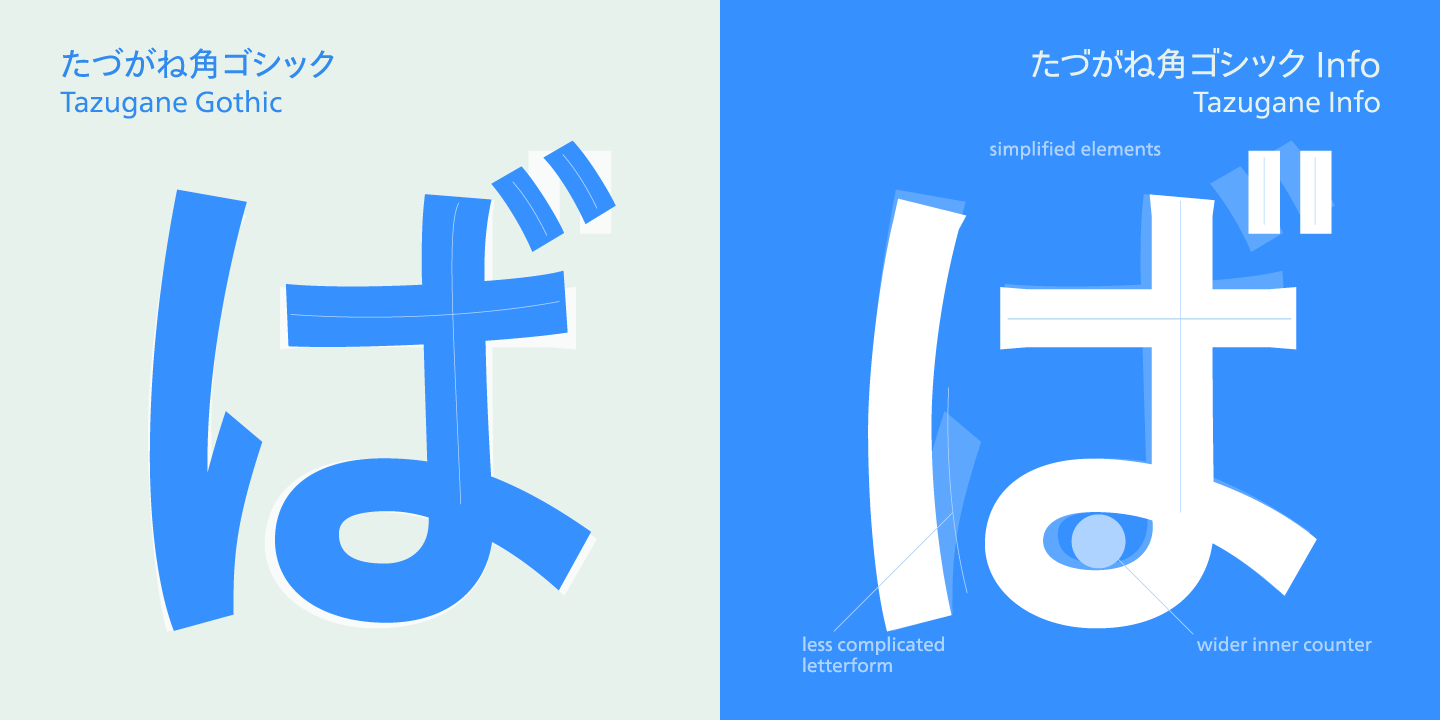
The Tazugane Info Font excels in various design applications including informational signage systems, wayfinding design projects, educational material layouts, technical documentation, transportation hub communications, public information displays, instructional design materials, user interface typography, data visualization graphics, and comprehensive information design that demands exceptional clarity and systematic organization.
What makes the Tazugane Info Font exciting is its specialized design philosophy that prioritizes information hierarchy and reading comprehension through meticulously crafted letterforms optimized for complex informational environments. This typeface demonstrates exceptional functionality through its systematic approach to character design that enhances scanability, reduces cognitive load, and improves information processing efficiency. The font's information-focused personality makes it ideal for organizations and institutions seeking typography that transforms complex data into accessible, easily digestible information through clear visual communication that respects readers' time and attention.
The Tazugane Info Font family typically includes comprehensive weight variations specifically designed for information hierarchy, featuring enhanced legibility optimizations, extended character sets for multilingual applications, and specialized symbols for technical and instructional use. These family options often include condensed variants for space-constrained environments, tabular numerals for data alignment, and accessibility-focused features that ensure optimal performance across diverse reading conditions and user needs.
Information design professionals and educational institutions consistently select Tazugane Info Font Free Download for projects requiring typography that maximizes information clarity and user comprehension. This typeface delivers exceptional performance in wayfinding systems, educational materials, and technical communications where reducing confusion and improving information accessibility is essential for user success. The font's systematic design makes it particularly effective for complex information environments and multilingual applications. Download Tazugane Info Font Free Download today to access this specialized typeface that transforms information design with its clarity-focused architecture and systematic sophistication, creating compelling informational experiences that demonstrate respect for user needs while maintaining exceptional functionality and accessibility standards.